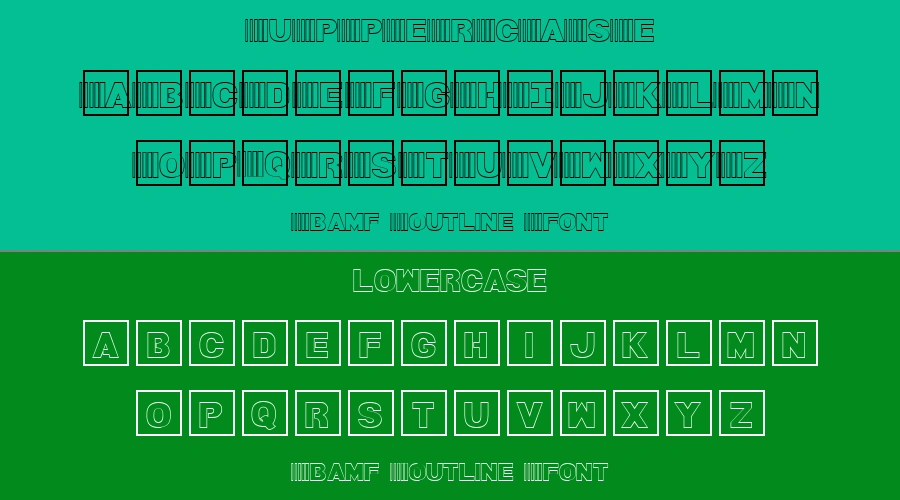
About Bamf Outline Font
Designed with precision, Bamf Outline Font merges rhythmic patterns with flexibility in every character. This versatility makes it particularly effective for advertising campaigns, where authenticity and generational appeal directly impact communication quality. Each letterform demonstrates meticulous craftsmanship.
Technical excellence shines through elements like elegant curves and contextual alternates, enhancing typographic versatility. In business cards settings, Bamf Outline Font proves its worth through superior small text clarity. The thoughtful execution of bowl shape and personality ensures professional results.
Bamf Outline Font |